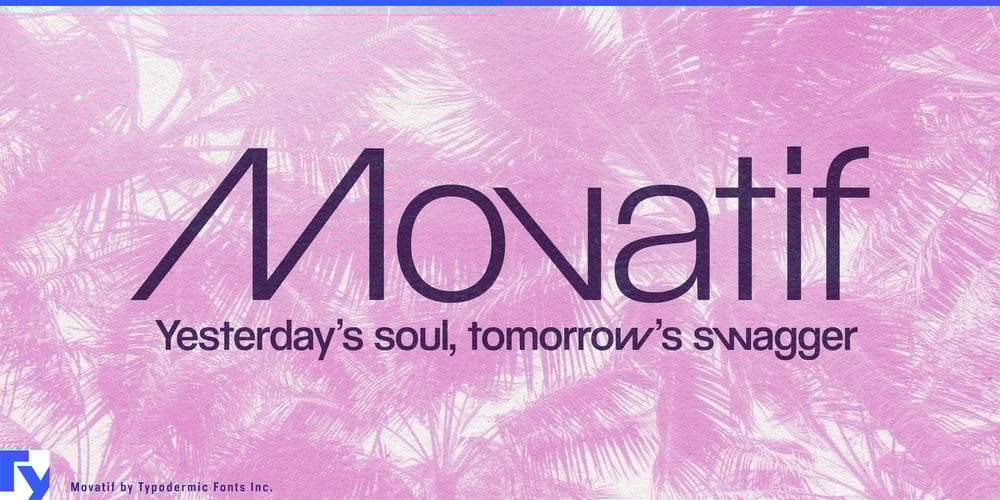
Movatif
Movatif font
Movatif Font Family was designed by Ray Larabie and published by Typodermic. Movatif contains 7 styles and family package options. Movatif isn’t just a typeface—it’s a time machine disguised as letters, transporting your designs through the best of 20th-century typography while adding a dash of contemporary flair. This sans-serif marvel from Typodermic Fonts doesn’t merely nod to the past; it remixes it with audacious creativity.Imagine a typeface that shape-shifts before your eyes. With seven distinct weights at your fingertips, Movatif offers a spectrum of expression from whisper-thin elegance to bold, attention-commanding presence. But it’s in the details where Movatif truly shines. Its OpenType features aren’t just add-ons—they’re portals to typographic wonder. Watch as certain letter pairs, like M and A, snap together in mesmerizing ways, creating visual synergies that are equal parts cool and captivating.Movatif’s genius lies in its ability to evoke the essence of 1970s design while feeling undeniably fresh. It captures that era’s distinctive blend of ennui and style, transforming the dreary into the desirable. Each character is a familiar friend wearing an unexpected outfit, challenging your perceptions and elevating your designs. But Movatif isn’t content to be a one-trick pony. Its extensive language support ensures your message resonates across borders, from the bustling streets of Berlin to the sunlit plazas of Lisbon. This linguistic versatility makes Movatif as much a global player as it is a typographic trendsetter.Ready to inject your projects with a dose of retro-futuristic charm? Let Movatif take center stage. Whether you’re crafting edgy magazine layouts, designing album covers that demand a double-take, or seeking to infuse your branding with a touch of nostalgic cool, Movatif delivers.